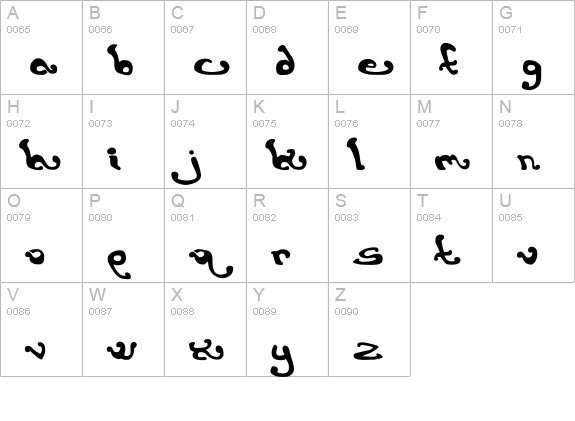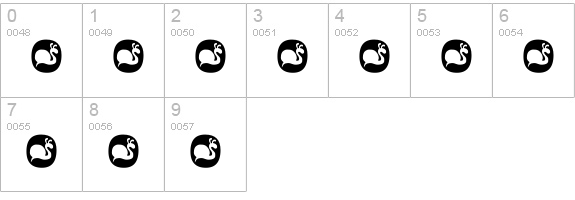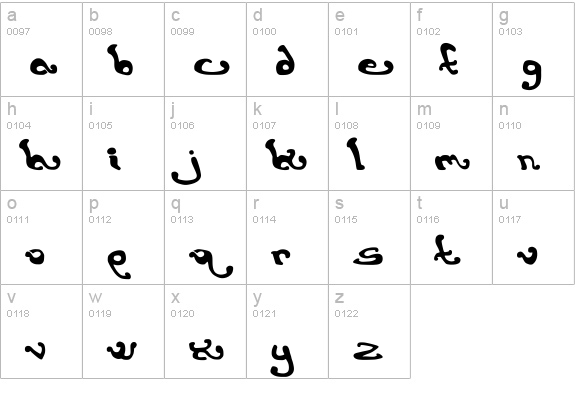
earthling. Font Details
Earthling font is a captivating typeface that exudes a sense of natural beauty and earthly elegance. With its smooth curves and organic shapes, this font is a perfect choice for any design project that requires a touch of warmth and authenticity. What sets Earthling font apart is not just its stunning aesthetics, but also the fact that it is freely available to download at FontsMarket.com. This means that designers, artists, and enthusiasts alike can easily access this remarkable font without any cost. Whether you are working on a logo, a poster, a website, or any other creative endeavor, Earthling font will effortlessly elevate your design to new heights. Its unique character and versatility make it suitable for a wide range of applications, from branding to editorial design. The Earthling font family includes a variety of weights and styles, allowing you to explore different options and find the perfect fit for your project. Whether you prefer a bold and impactful look or a more subtle and delicate approach, Earthling font has got you covered. With its generous x-height and balanced proportions, Earthling font ensures excellent readability in both print and digital formats. Its smooth lines and well-crafted letterforms make it a pleasure to read, ensuring that your message comes across clearly and effectively. So why wait? Download Earthling font today at FontsMarket.com and discover the beauty and versatility of this remarkable typeface. Whether you are a professional designer or a passionate hobbyist, Earthling font is sure to become a valuable addition to your font collection. Embrace the freedom of creativity and let Earthling font guide you towards stunning and impactful designs.